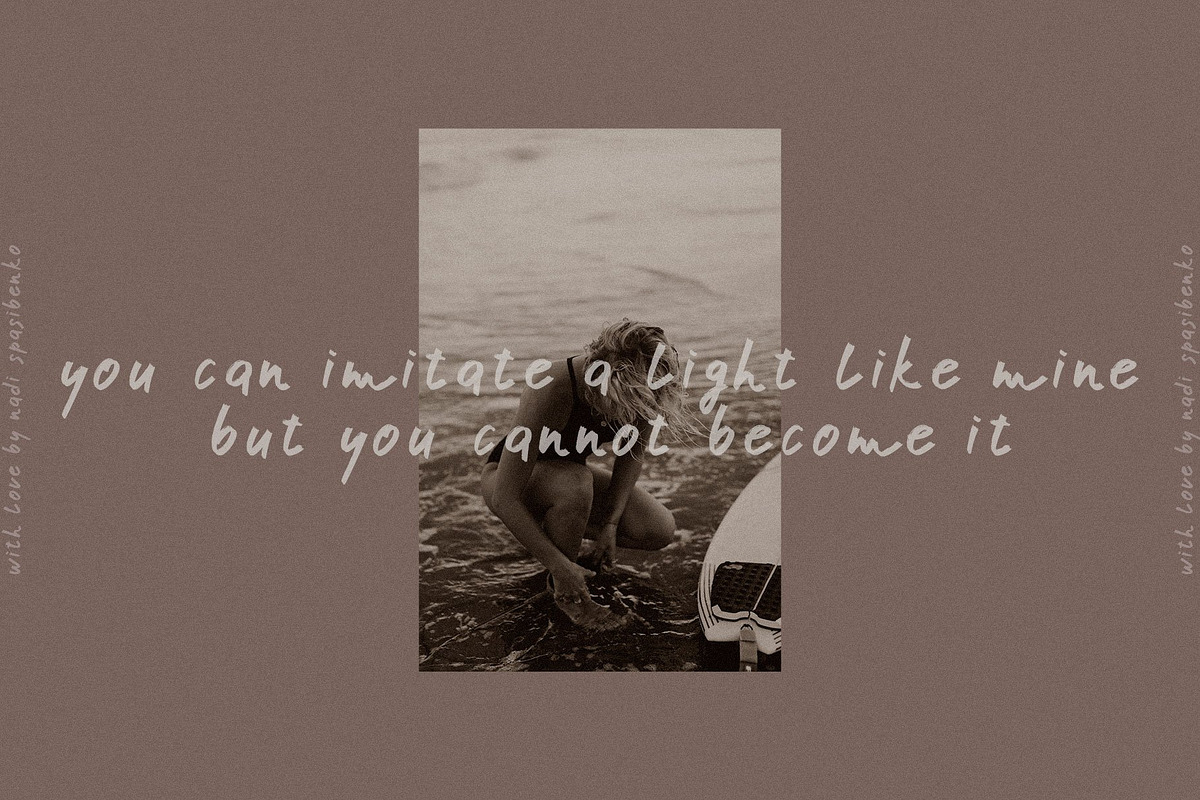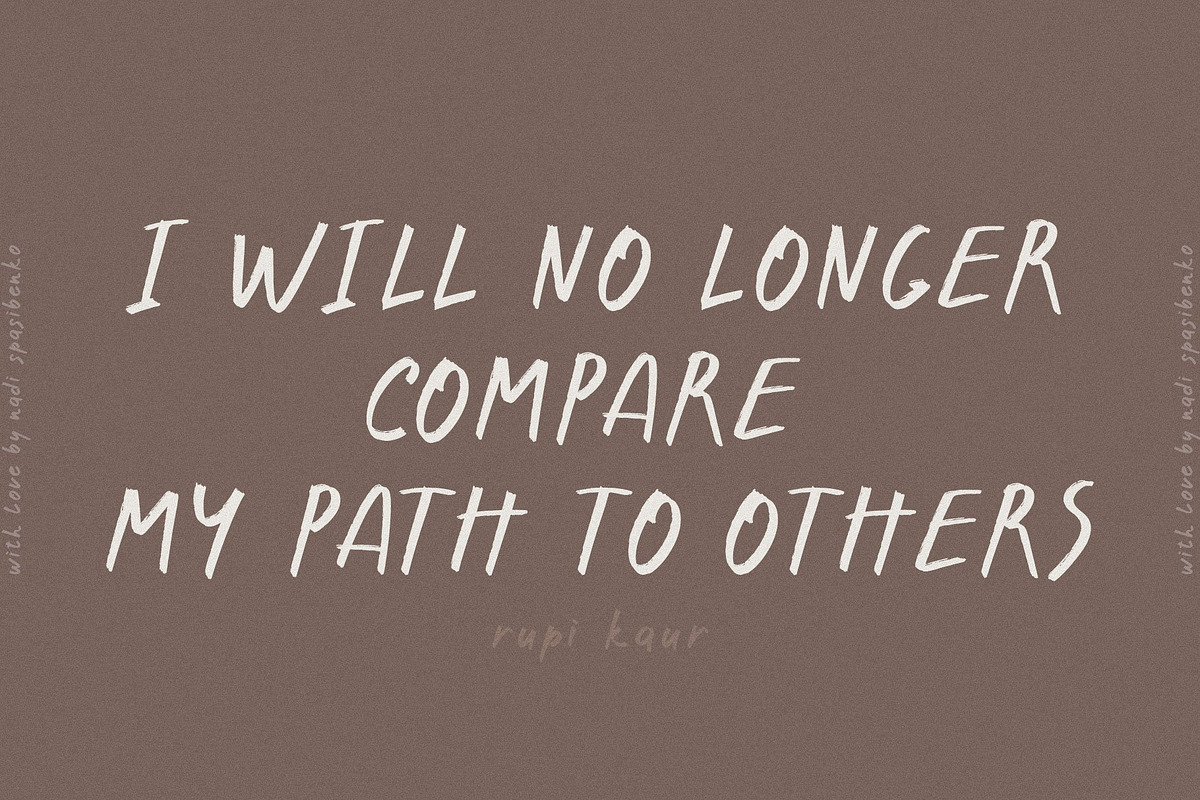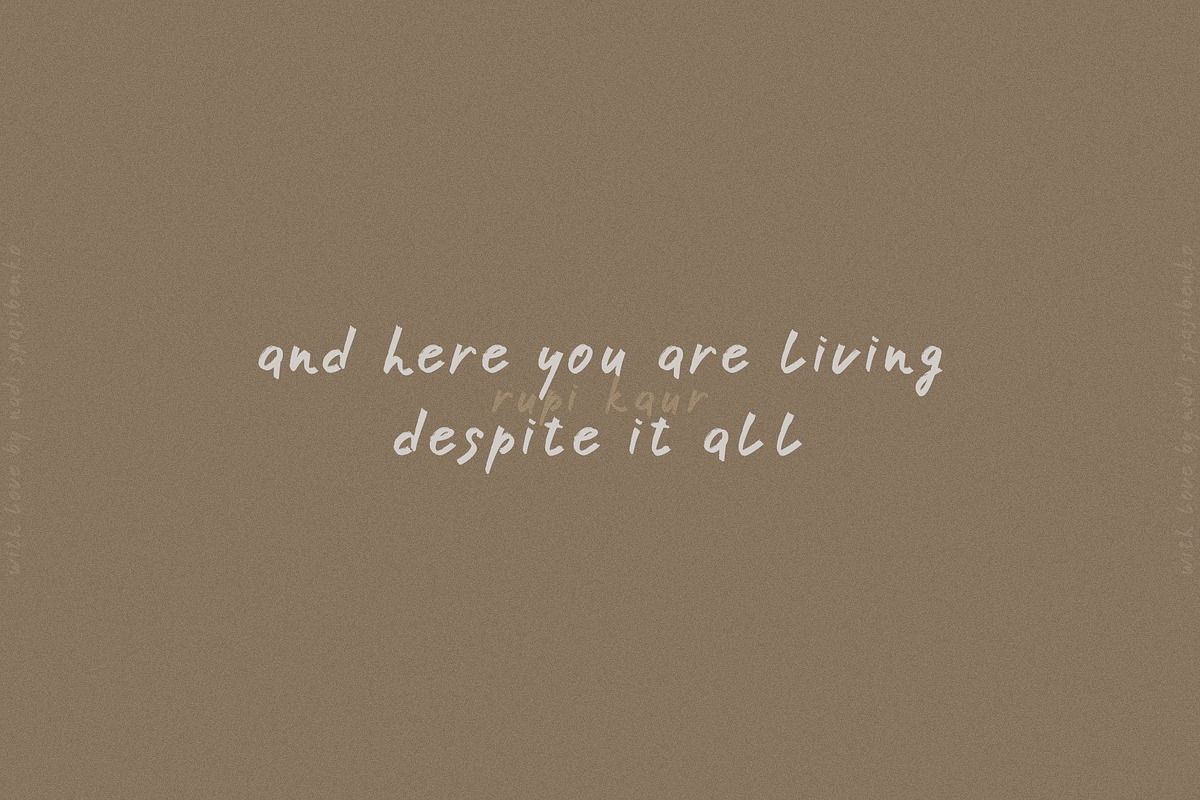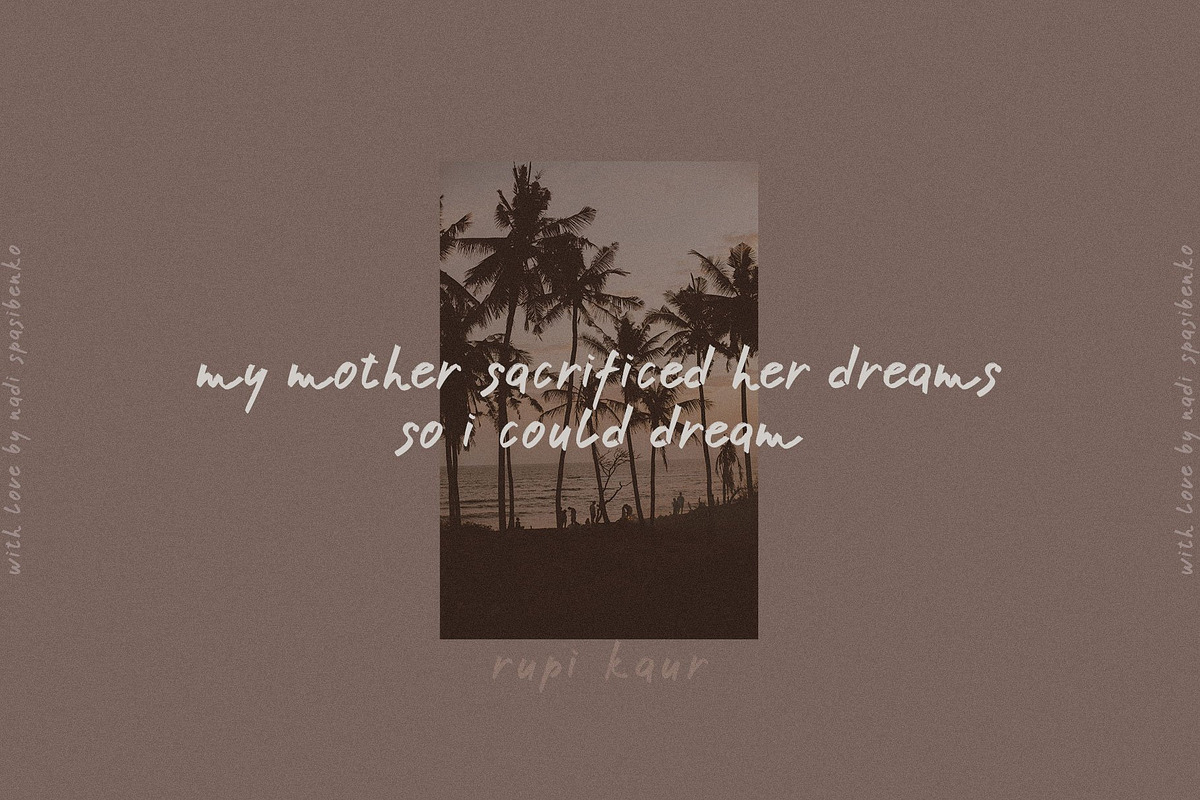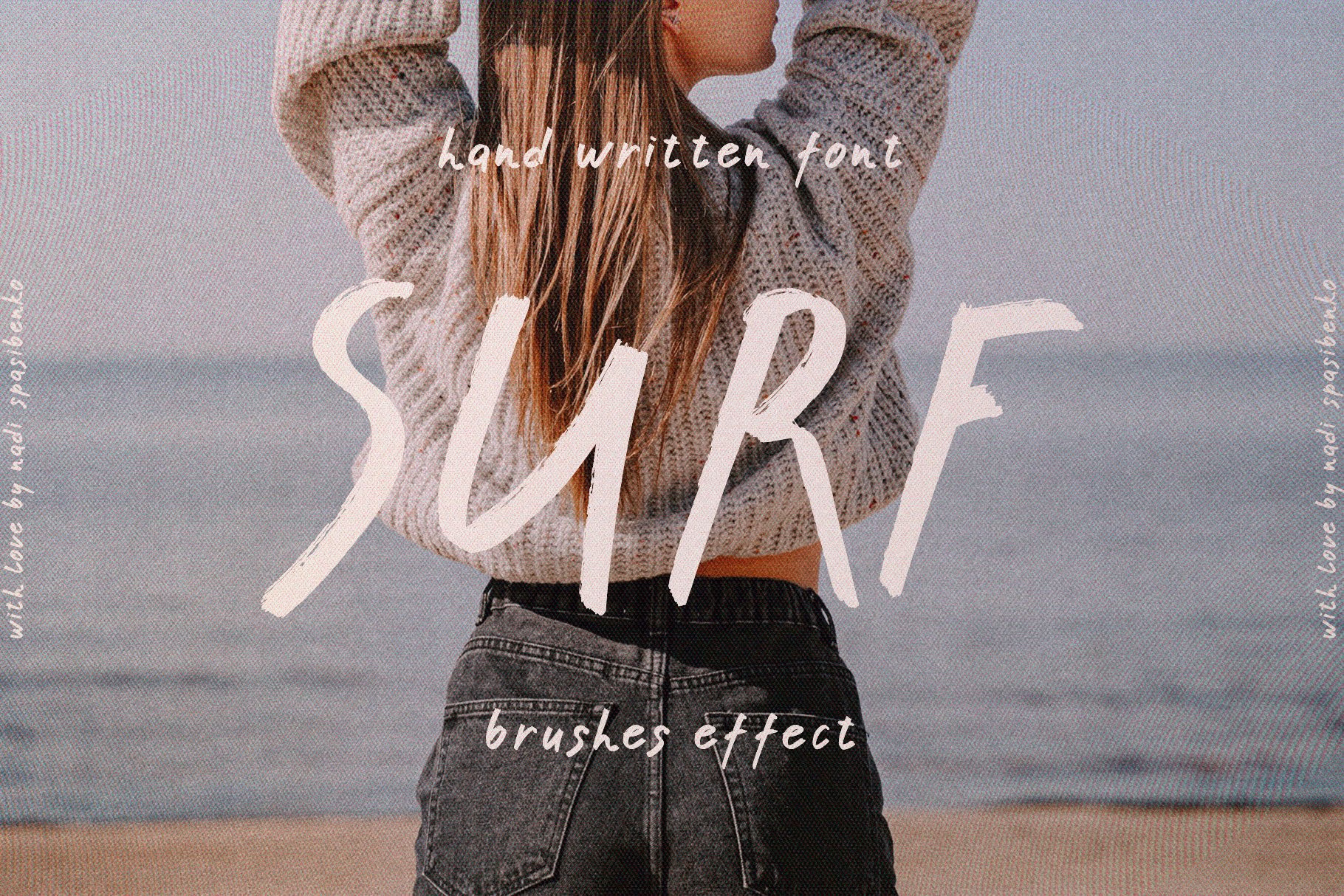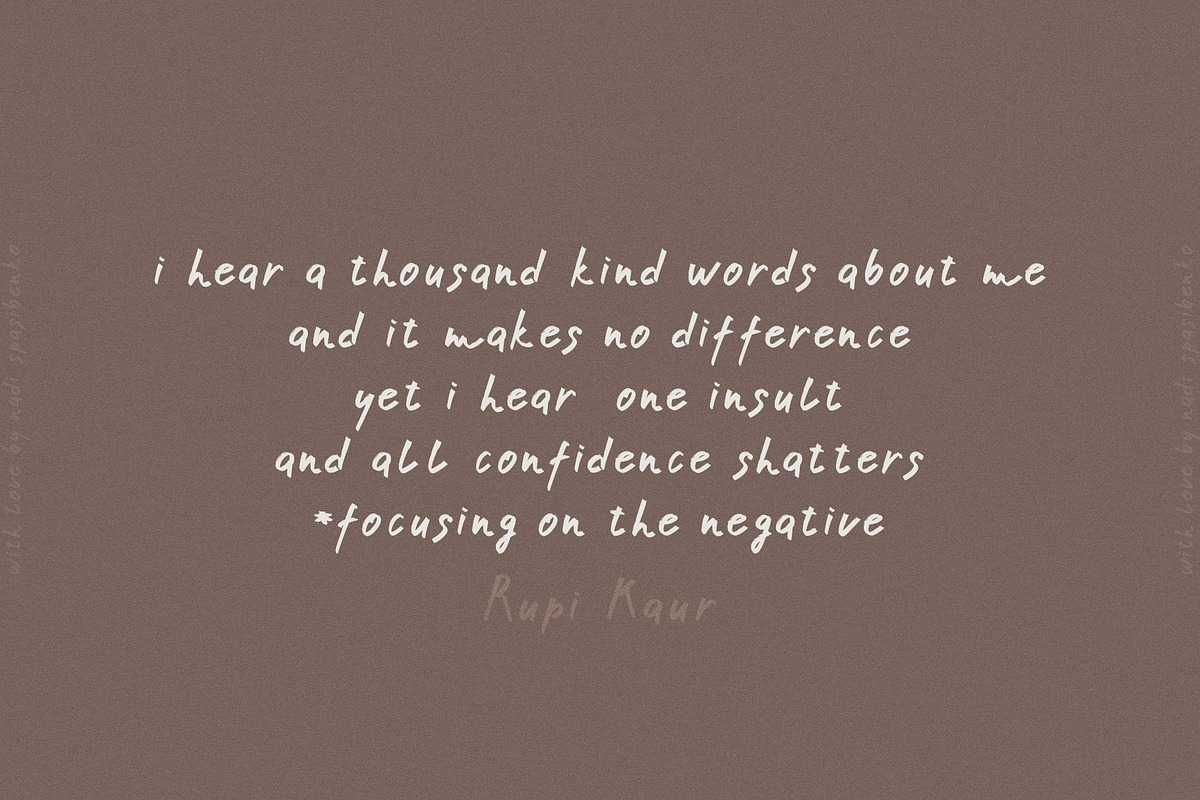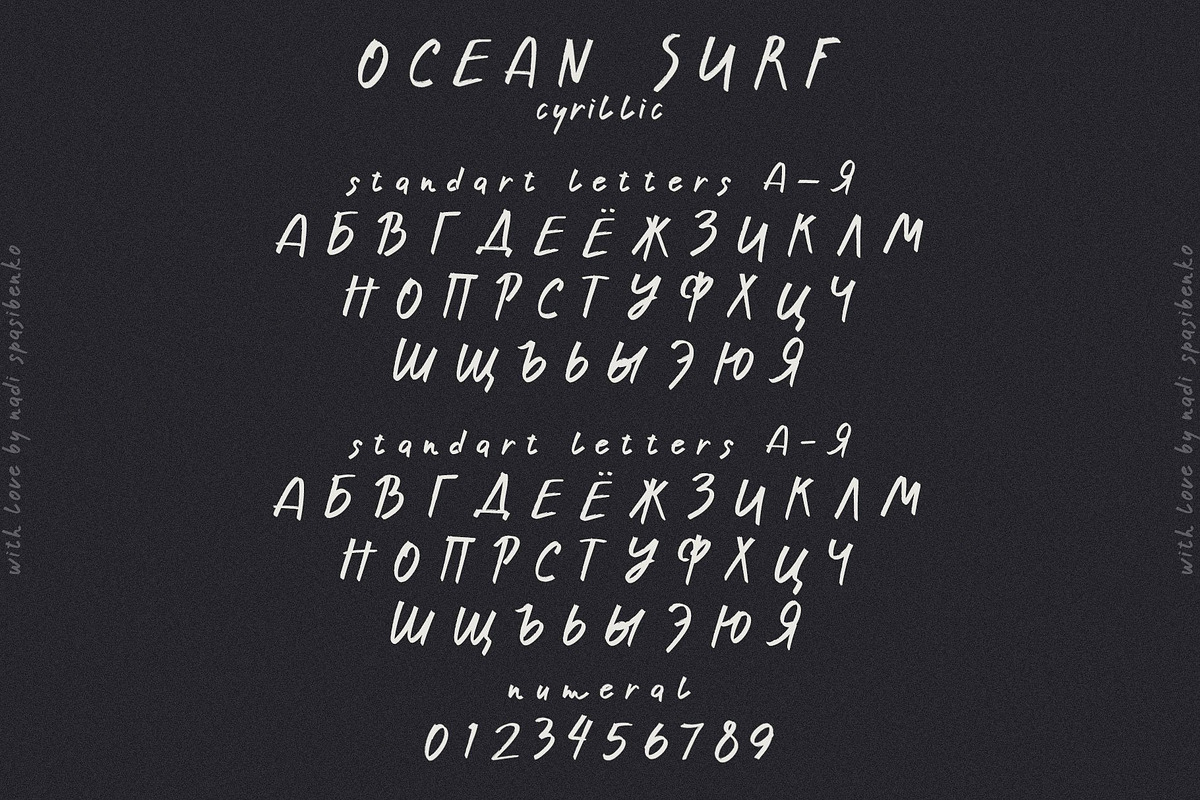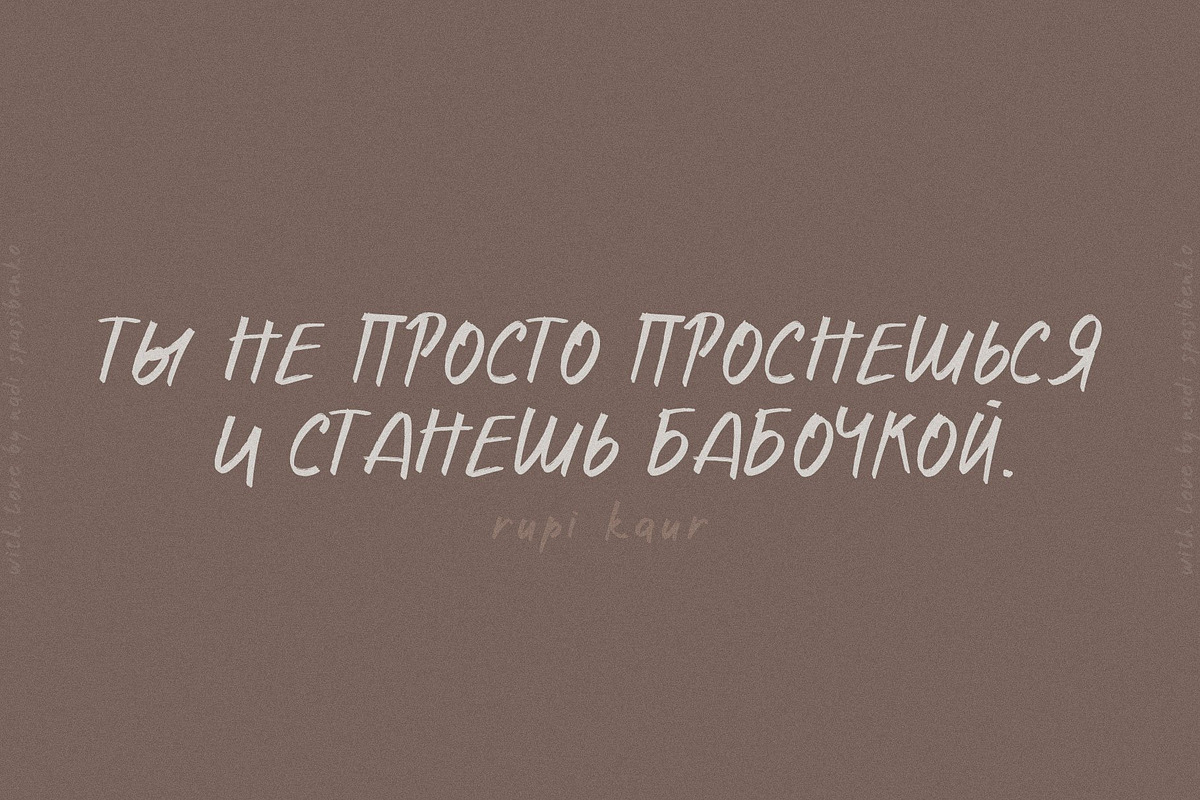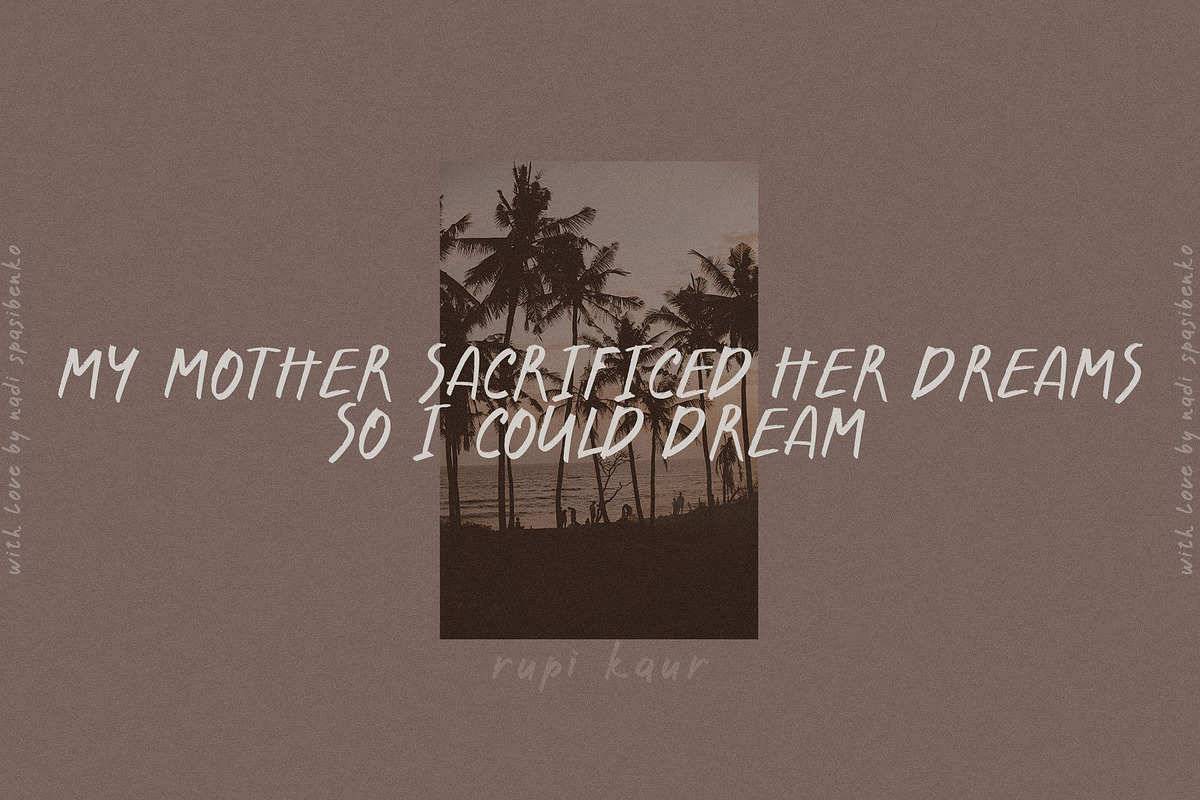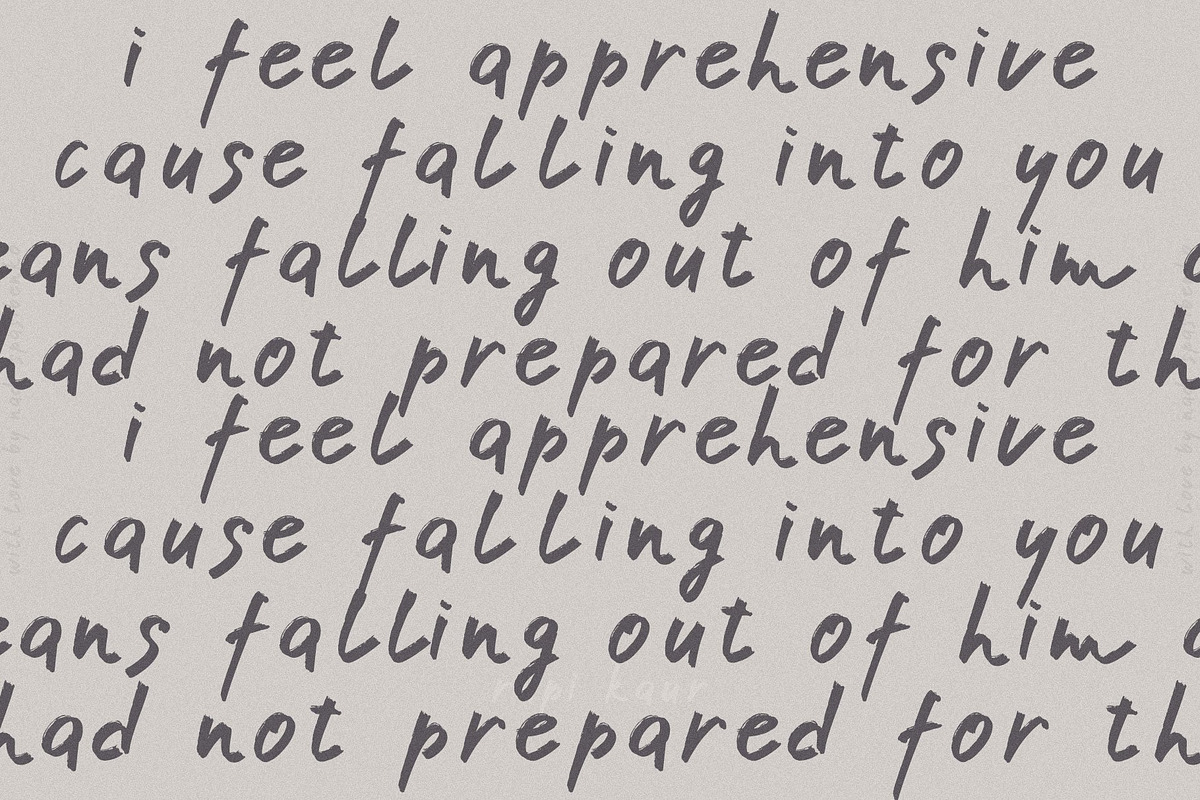
Ocean Surf Hand Written Font
Simple font with brush effect. You get a lively font, as if written with a brush or markers. The font is great for quotes, branding, social media, websites and more.
The font contains Cyrillic You can use in your products and enjoy stylish design.